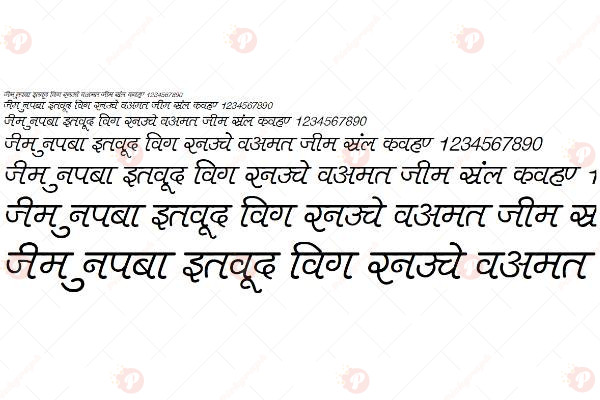
The Abbasi Priya Font is a beautifully designed typeface that combines elegance with versatility. With its unique character shapes and modern aesthetics, this font is ideal for logos, branding, invitations, posters, packaging, social media graphics, and creative typography projects.
Whether you’re working on a professional design or a personal project, Abbasi Priya adds a touch of sophistication and style that makes your work stand out.
Style: Elegant / Stylish / Modern Typeface